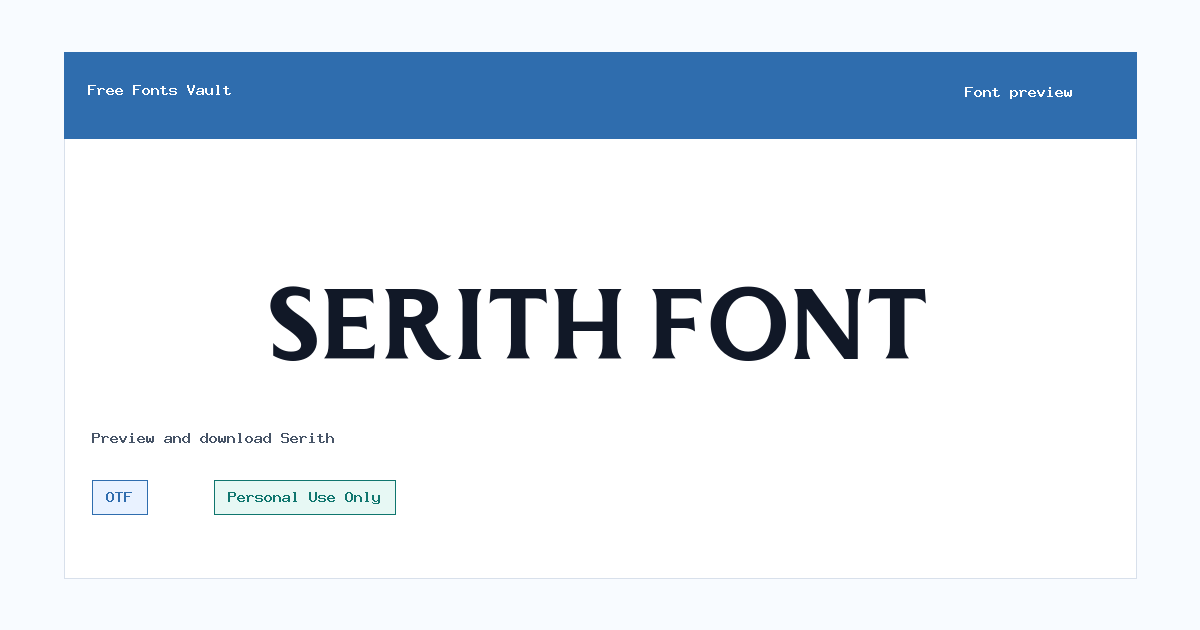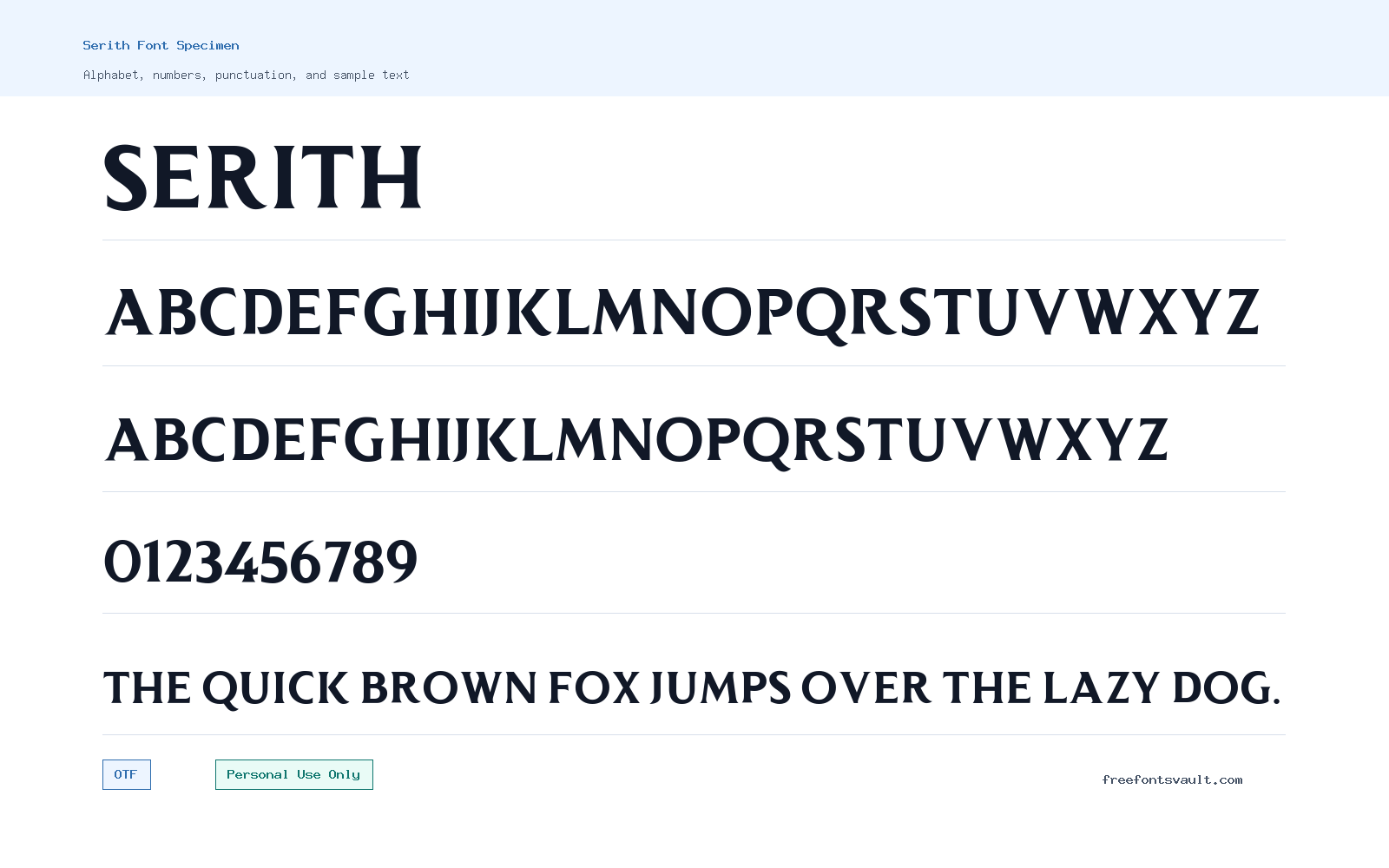
Serith
Serith font.
Serith is a display font from Sharkshock with a strong personality for short, eye-catching text. It is best treated as a headline or logo-style typeface rather than a long-reading font, and its license is Personal Use Only.
About Serith Font
Serith works well when you need a word or short phrase to feel more distinctive than a standard sans serif or serif choice. Because it is presented as a display font, the safest way to use it is in places where the type can be large enough for its shapes to stand out clearly: poster titles, album-style graphics, social media headers, event artwork, thumbnails, personal branding tests, and logo mockups. It is not the kind of font to choose for paragraphs, small captions, or dense interface text where fast reading matters more than character.
For design work, start by testing Serith with the exact word or phrase you plan to use. Display fonts can change a lot from one word to another, especially when letters with strong shapes sit next to each other. Try it in uppercase and mixed case if those options are available in your design app, then check spacing at the final size. If the design is for a logo concept, poster headline, YouTube thumbnail, web hero mockup, or packaging draft, give the letters enough room and avoid overloading the layout with other decorative fonts. Serith will usually work better when paired with a quiet supporting typeface for descriptions, dates, pricing, menus, or body copy.
- Display-focused style suited to short titles, logo concepts, posters, and visual headlines
- Best used at larger sizes where the letterforms have room to show clearly
- Works well as a focal font when paired with a simple sans serif or readable serif
- Logo mockups and personal branding concepts
- Poster headlines and event graphics
- Social media banners, thumbnails, and cover images
- Web design mockups and hero-section title tests
- Album art, game-title concepts, and short display text
- Personal projects where a stronger title font is needed
Use Serith as a display face, not as a general reading font. Keep it for names, titles, headings, and short phrases. For logos and posters, test the spacing manually and view the artwork at real size before exporting. For web mockups, use it mainly in hero text or graphic headings, then pair it with a clean, readable font for navigation, descriptions, buttons, and longer content.
Who designed Serith?
Serith is credited to Sharkshock.
What type of font is Serith?
Serith is a display font, which means it is best used for large, attention-focused text rather than long paragraphs.
What fonts pair well with Serith?
Pair Serith with a simple sans serif for a clean modern layout, or with a readable serif if you want a more editorial feel. Avoid using another highly decorative font beside it, because that can make the design look crowded.
Is Serith good for website body text?
No. It is better for headings, hero text, and graphic display use. Choose a more readable text font for paragraphs and interface copy.